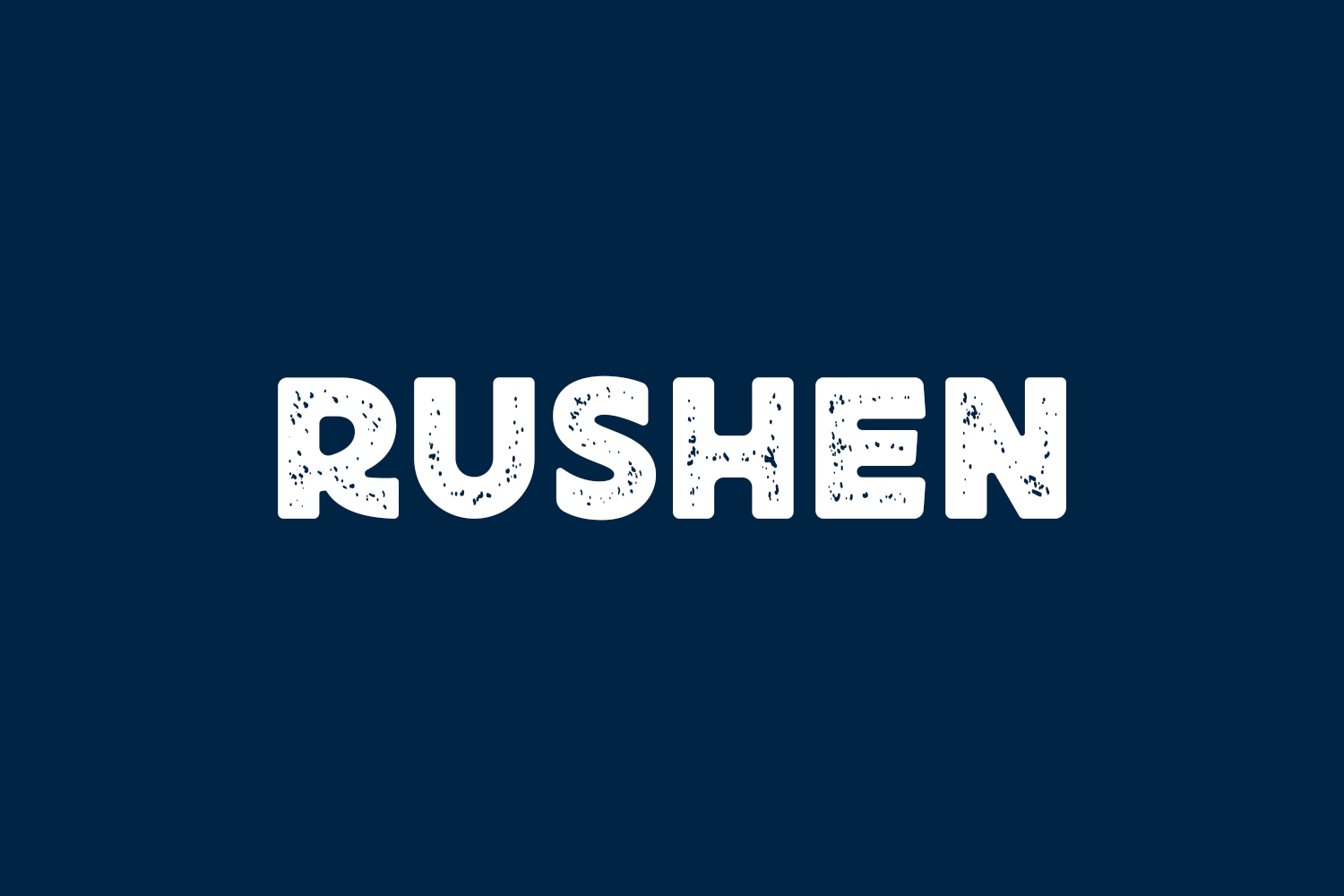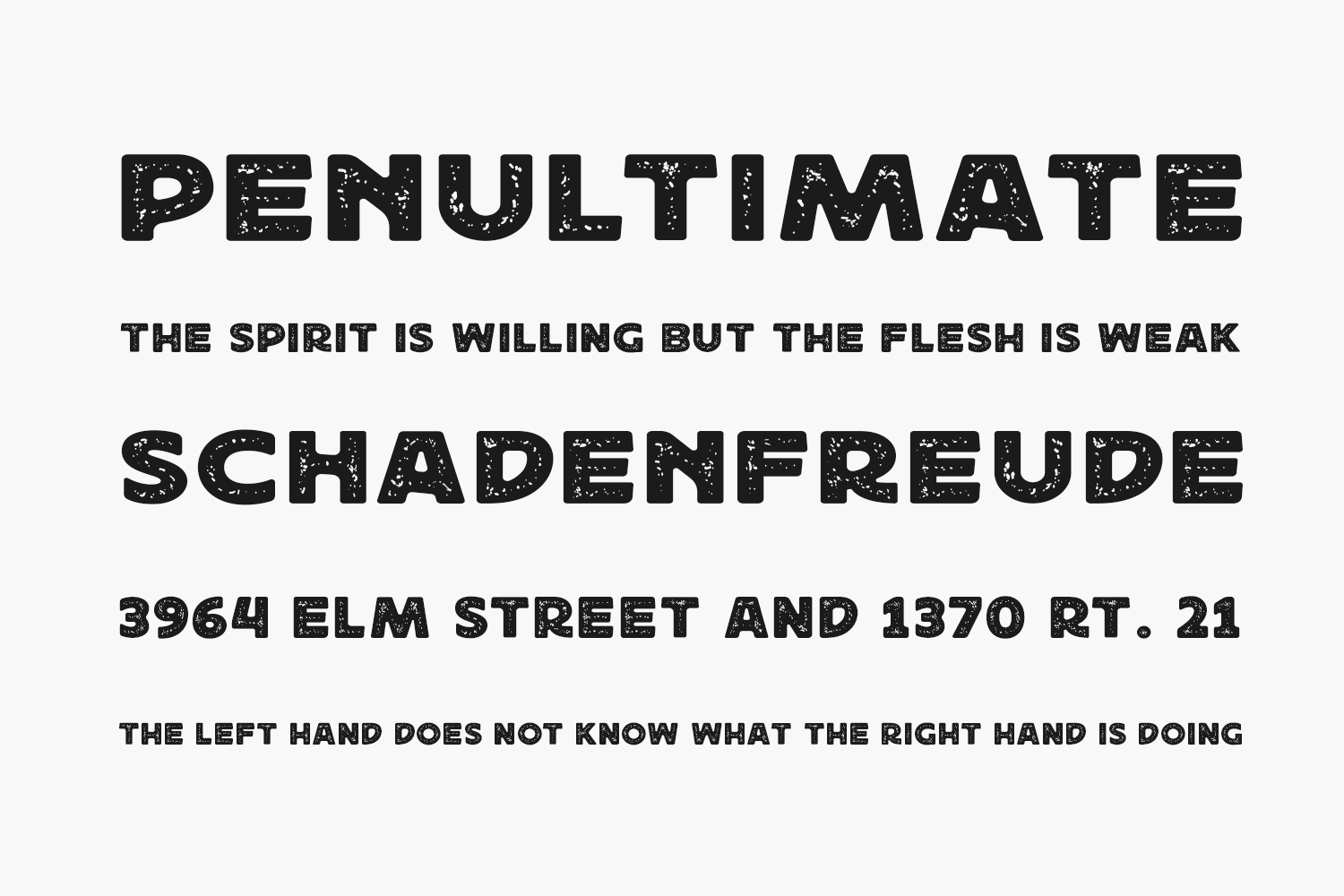
Rushen Free Font is a cool, brushed and thick lettered display font. No matter the topic, this font will be an incredible asset to your fonts’ library, as it has the potential to elevate any creation. Rushen Free Font is free for personal use only. Please purchase the full version for commercial use.